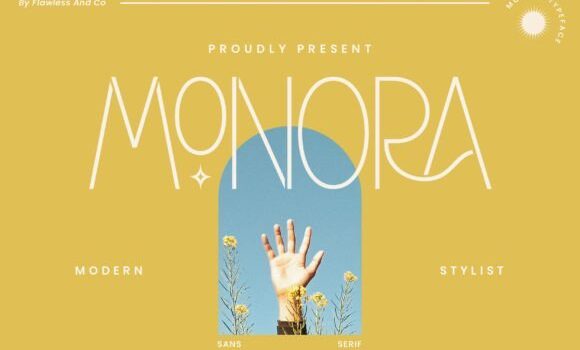
monora
Monora Font - Featured Image
Monora Font – Free Download Introduction to Monora Font Monora is a sleek and modern sans serif font that embodies contemporary design with clean lines and a minimalist aesthetic. 📸 Preview Gallery 6 images 📌 Product Name Monora Font 👤